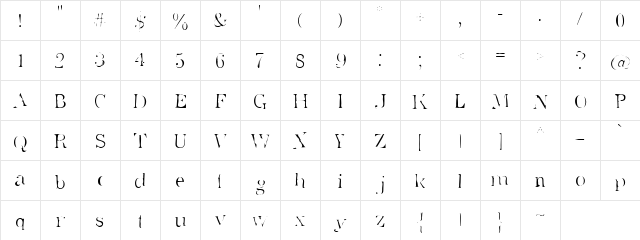
Superstar Regular
Design Context for Superstar Typeface
Superstar takes a measured approach to typography — its balanced proportions and neutral character make it a reliable workhorse for both digital and print work.
Pro Tip: Pair Superstar with a font of contrasting weight or personality to build a more expressive typographic hierarchy.